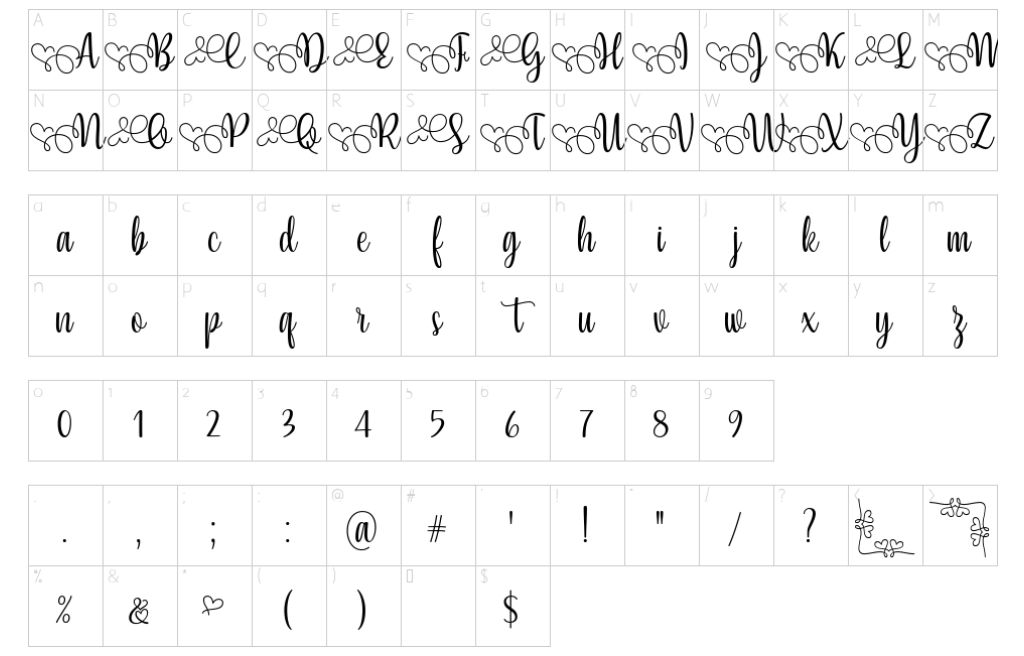
Yessy Font: Introduction
Typography is the centerpiece of visual communication, determining the tone and character of any piece of design. Of the millions of fonts now available, script fonts have never failed to excel in terms of warmth, character, and refinement. A beautiful example of modern script font heritage is the Yessy font—a cheerful, handwritten font fuses informal flair with professional finish.
In this comprehensive guide, we’ll explore everything about the Yessy font: its origin, unique features, ideal use cases, popular alternatives, and why it’s become a designer favourite.
Overview of Yessy Font
Yessy is a contemporary hand-lettered script typeface that conveys an air of freedom and imagination.It aims to simulate the free flowing manner of hand-written mail but it presents an earthly, cozy atmosphere without sacrificing even an iota of sophistication.
Thoughtfully designed, Yessy contains stylistic alternates, swashes, and ligatures, making it ideal for branding, social media posts, wedding invitations, and more. It’s a favorite for its relaxed brush lettering feel, which is playful and freehand.
Quick Facts:
- Font Type: Script / Handwritten
- Style: Brush, Casual, Feminine
- Designer/Publisher: 7NTypes (Situjuh Nazara)
- Best For: Logos, invitations, branding, Instagram posts, and feminine designs
History of Yessy Font
Yessy font is the work of Situjuh Nazara, an Indonesian face designer who goes by the foundry name 7NTypes. It came into the market on October 12, 2018, to meet the growing need for unique, hand-crafted fonts ideal for digital marketing, social media, and lifestyle branding.
Key Features of Yessy Font
Yessy stands out due to several distinctive features:
1. Authentic Handwritten Feel
Yessy was designed using digital brushes, giving each stroke a natural, fluid motion. It mimics real handwriting—complete with charming imperfections and brush texture.
2. Stylistic Alternates and Swashes
Yessy comes packed with alternate characters and swashes that allow you to customize each word. For instance, the end swashes in words like “hello” or “love” make text feel dynamic and polished.
3. Ligatures
The font includes built-in ligatures (like double letters or common pairs), which improve the reading flow and add extra style.
4. Multilingual Support
Yessy supports many international characters making it versatile for global branding and it supports over 200 languages, including Latin, Cyrillic, and Greek scripts.
Applications and Use Cases
Due to its soft, expressive aesthetic, the Yessy font works beautifully in projects where personality and warmth are key. Here are some top use cases:
1. Wedding and Event Invitations
Yessy is perfect for designing elegant modern wedding invites or event signage. Its calligraphic swashes add a romantic, personal touch.
2. Social Media Graphics
Influencers and small business owners frequently use Yessy on Instagram posts, story highlights, and Pinterest graphics. It creates a friendly, feminine tone that engages followers.
3. Branding and Logos
For boutique brands—especially those in fashion, beauty, or lifestyle—Yessy lends a handmade charm that elevates the brand personality.
4. Website Headers and Hero Images
Yessy can enhance web headers or call-to-action sections, especially on creative portfolio sites or lifestyle blogs.
5. Product Packaging and Labels
From candle jars to artisan food packaging, Yessy adds an artisanal feel that appeals to conscious consumers.
Pros and Cons of Yessy Font
Like any typeface, Yessy has its strengths and limitations. Here’s a quick breakdown:
Pros:
- Authentic brush lettering feel
- Includes alternates, ligatures, and swashes
- Easy to use with popular design tools
- Highly customizable
Cons:
- Not ideal for large bodies of text
- Limited weight options (usually single style)
- Requires OpenType-compatible software for full feature access
Top Alternatives to Yessy Font
1. Sunkiss Script Font
A delicate handwritten font with a romantic feel suitable for invitations and branding.
2. Meie Script Font
A modern script font with elegant curves, perfect for fashion and beauty projects.
3. Marchell Font
A stylish script font with a contemporary touch ideal for logos and social media graphics.
4. Adelarsio Font
A calligraphic font with a classic feel great for formal invitations and stationery.
5. Hello Honey
A playful script font with a casual vibe suitable for lifestyle blogs and creative projects.
Conclusion
The Yessy font is more than a script; it’s a character. The handwriting quality, elegant curves, and flexibility instill warmth and charm to every creative project. Whether designing a wedding invitation, a female brand identity, or an Instagram post to share, Yessy has the stylistic heft to make your work memorable.